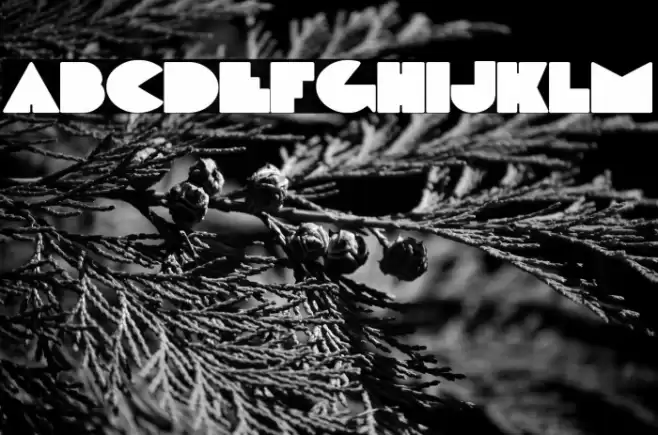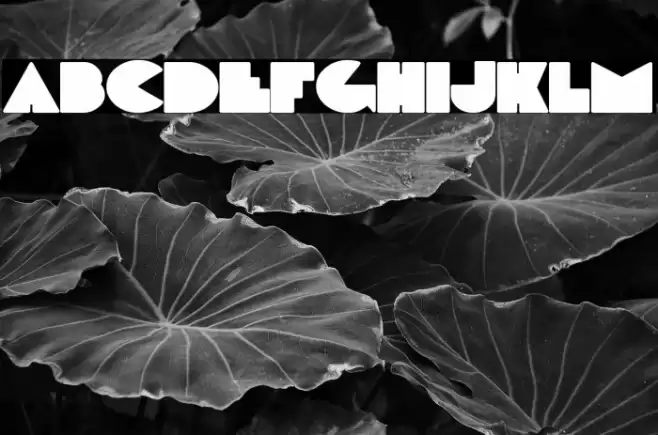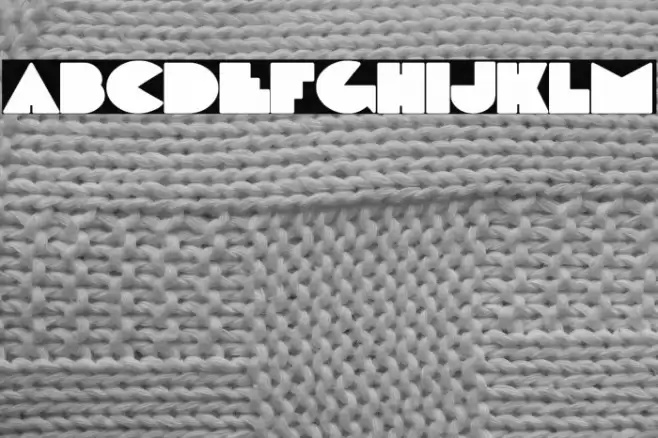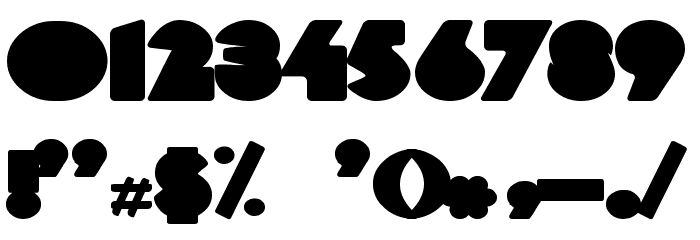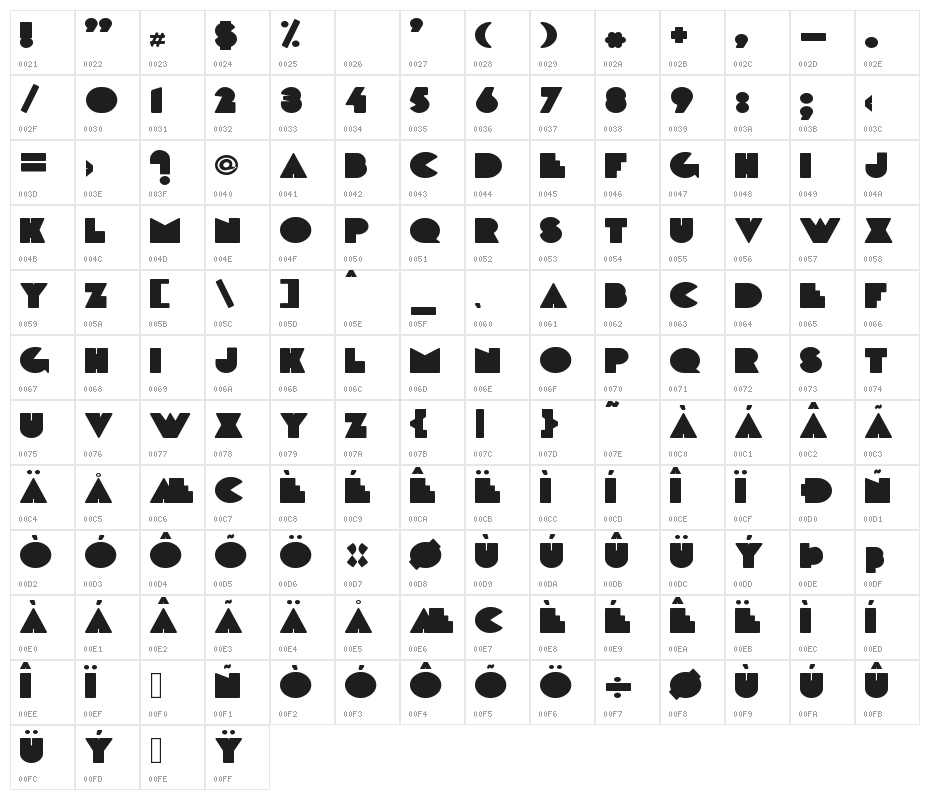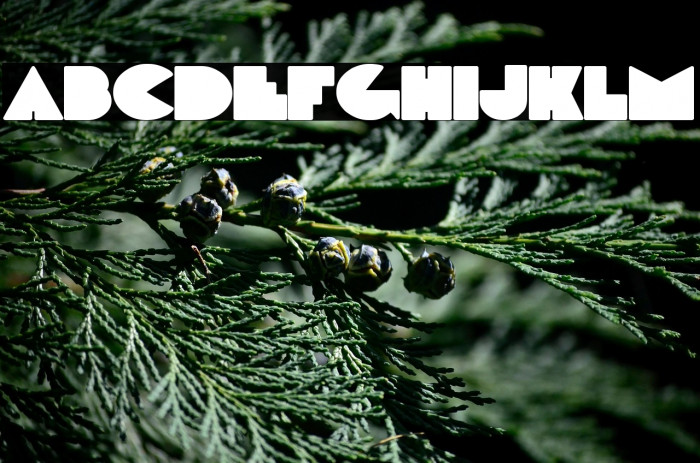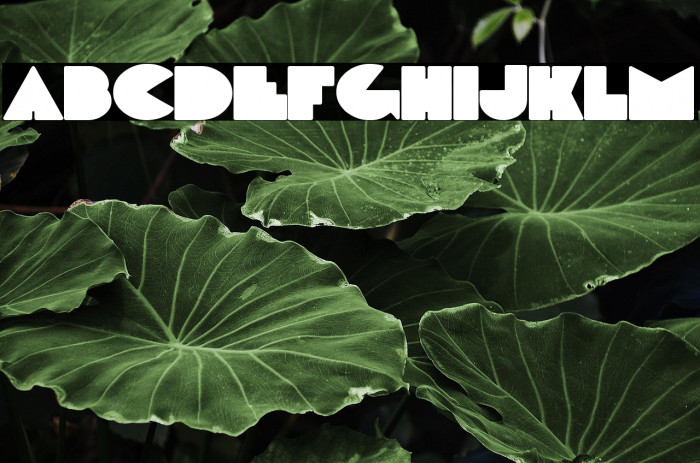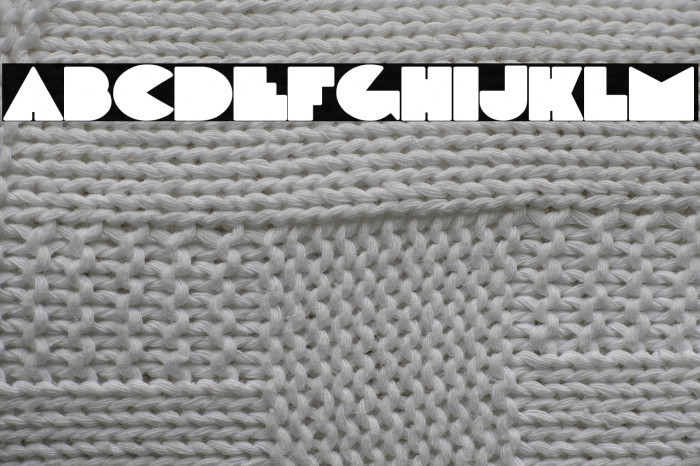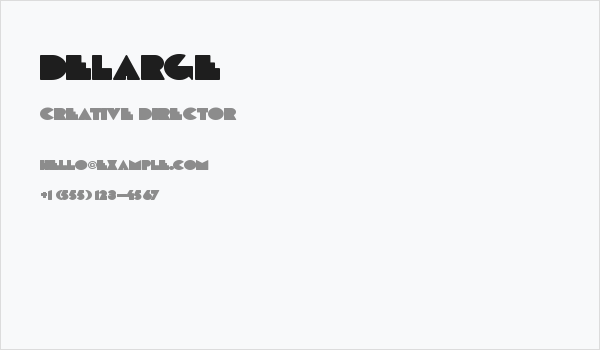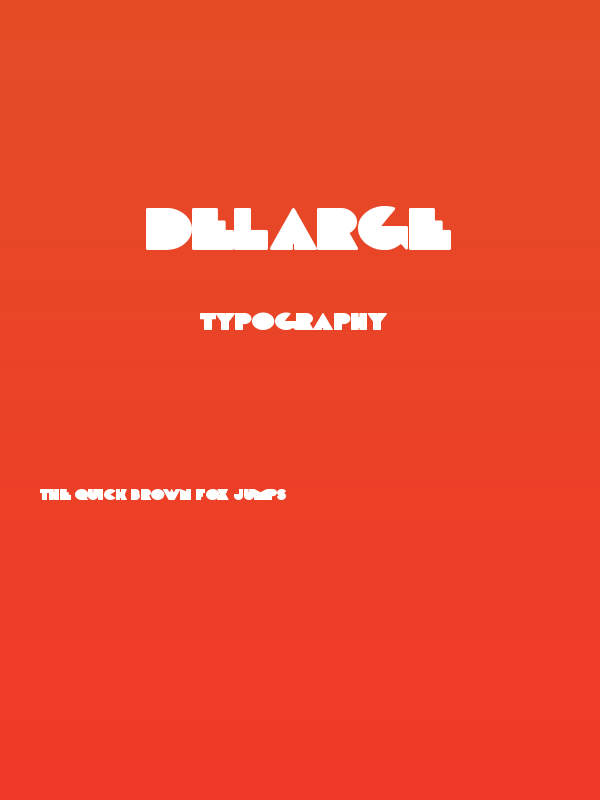
DeLarge Font
DeLarge Description
This font features bold, geometric shapes with a strong presence. The characters are constructed with solid, block-like forms that create a sense of weight and stability. The uppercase letters are particularly striking, with sharp angles and a uniform thickness that emphasizes their boldness. The lowercase letters maintain the same geometric style, ensuring consistency across the typeface. Numbers and special characters are designed to match the overall aesthetic, with rounded and angular elements that complement the letters. This font is ideal for making a statement, with its eye-catching and modern design.
A bold, geometric font with a strong, modern aesthetic from Uncategorized fonts.